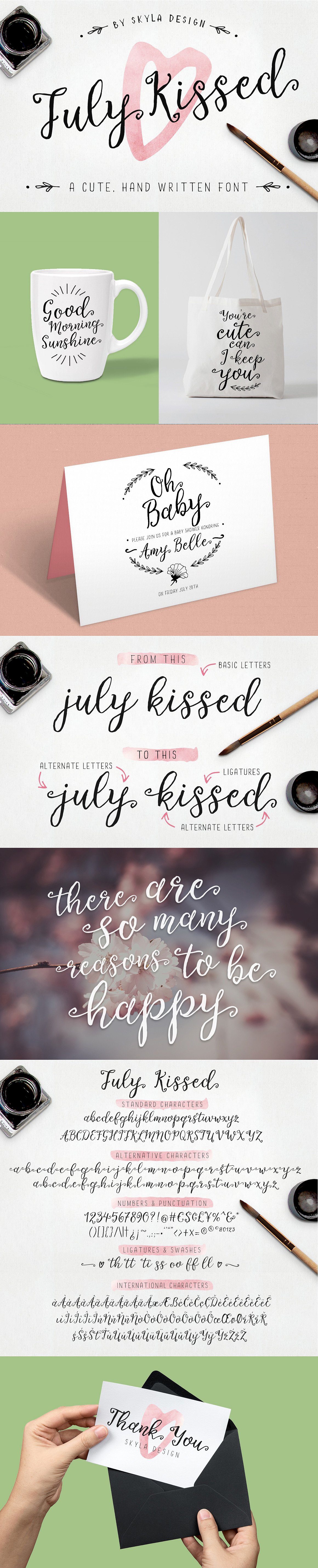
July Kissed Script Font
July Kissed is a cute, handwritten font which is perfect for greeting cards, stamps, posters, invites, and all your other fun projects.